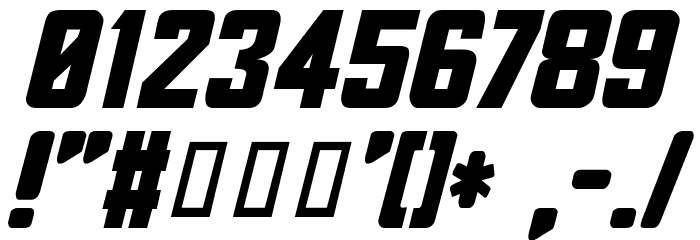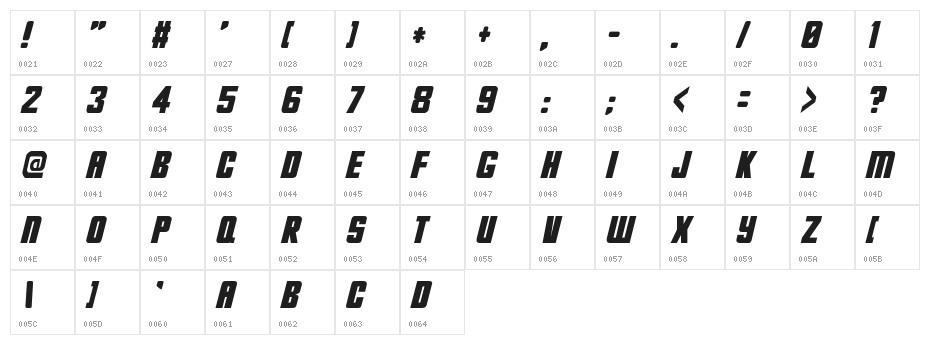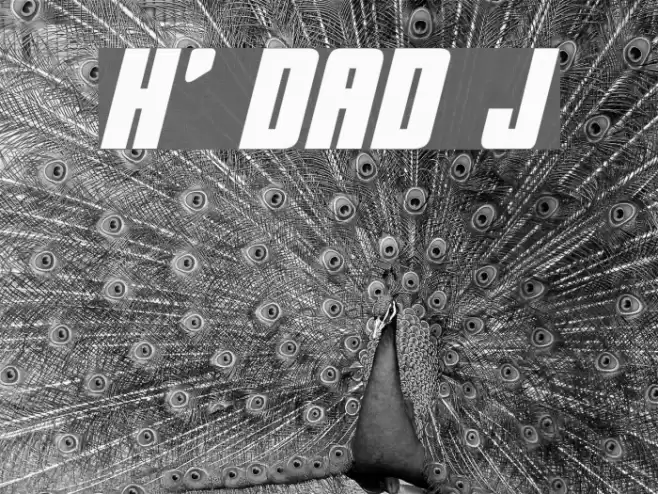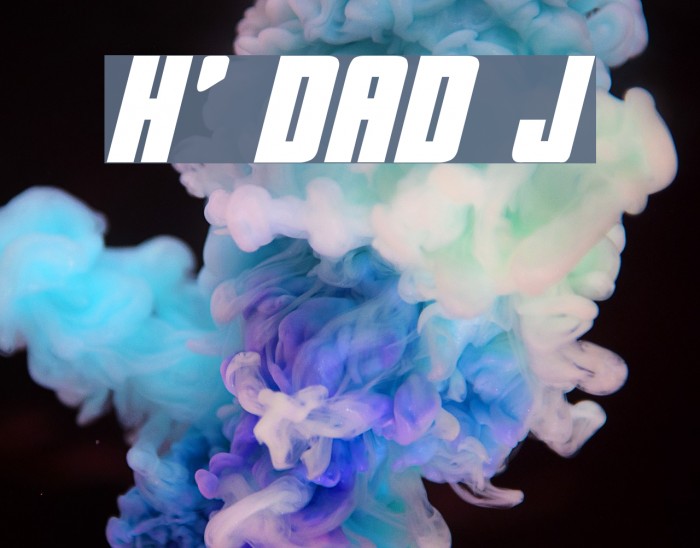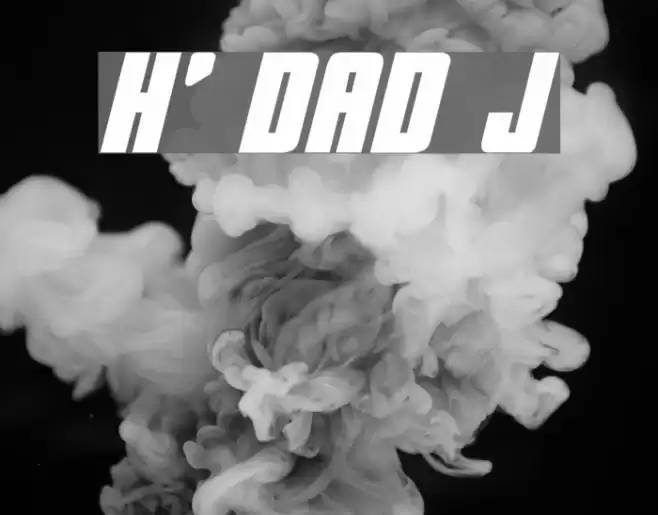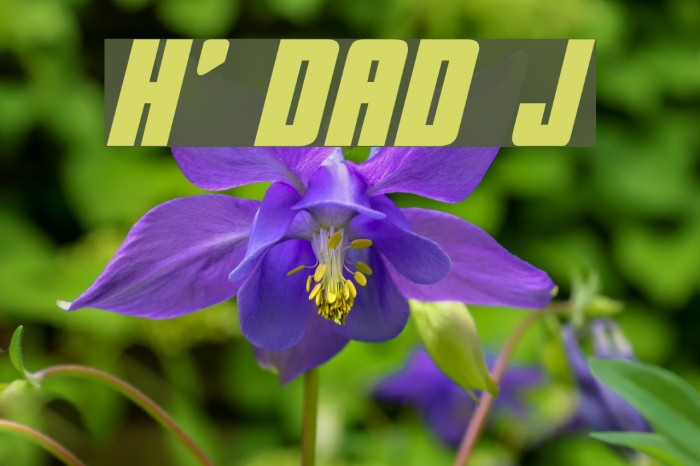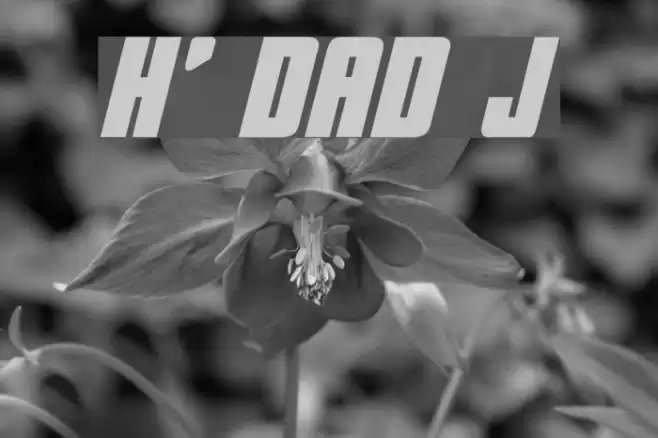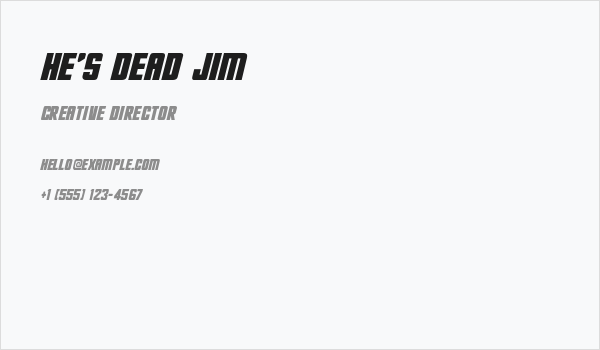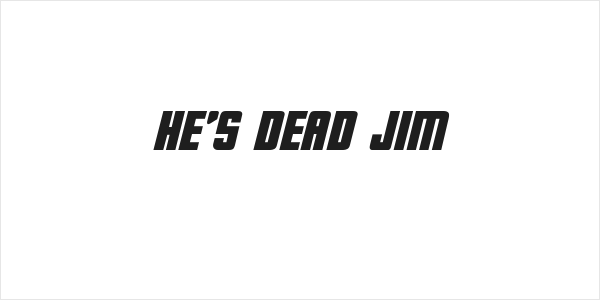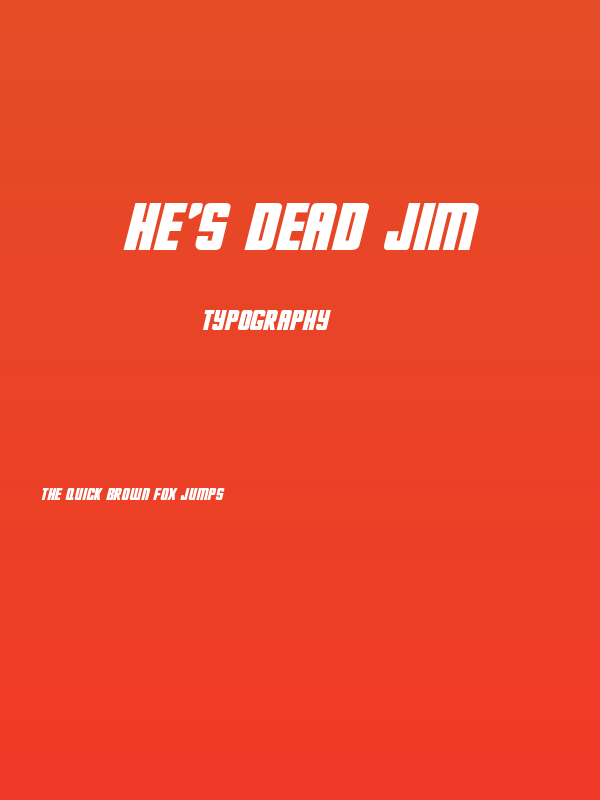
He's Dead Jim Font
He's Dead Jim Description
This font features a bold, dynamic style with a strong presence. The characters are slightly condensed, giving a compact and powerful look. The strokes are thick and consistent, providing a uniform appearance across all characters. The slanted design adds a sense of motion and energy, making it ideal for attention-grabbing headlines or impactful logos. The uppercase and lowercase letters maintain a cohesive style, while the numbers and special characters complement the overall design. The font's modern and assertive aesthetic makes it suitable for projects that require a bold statement.
| Proposed Projects | Ideal for sports branding, action movie posters, dynamic logos, and bold headlines. |